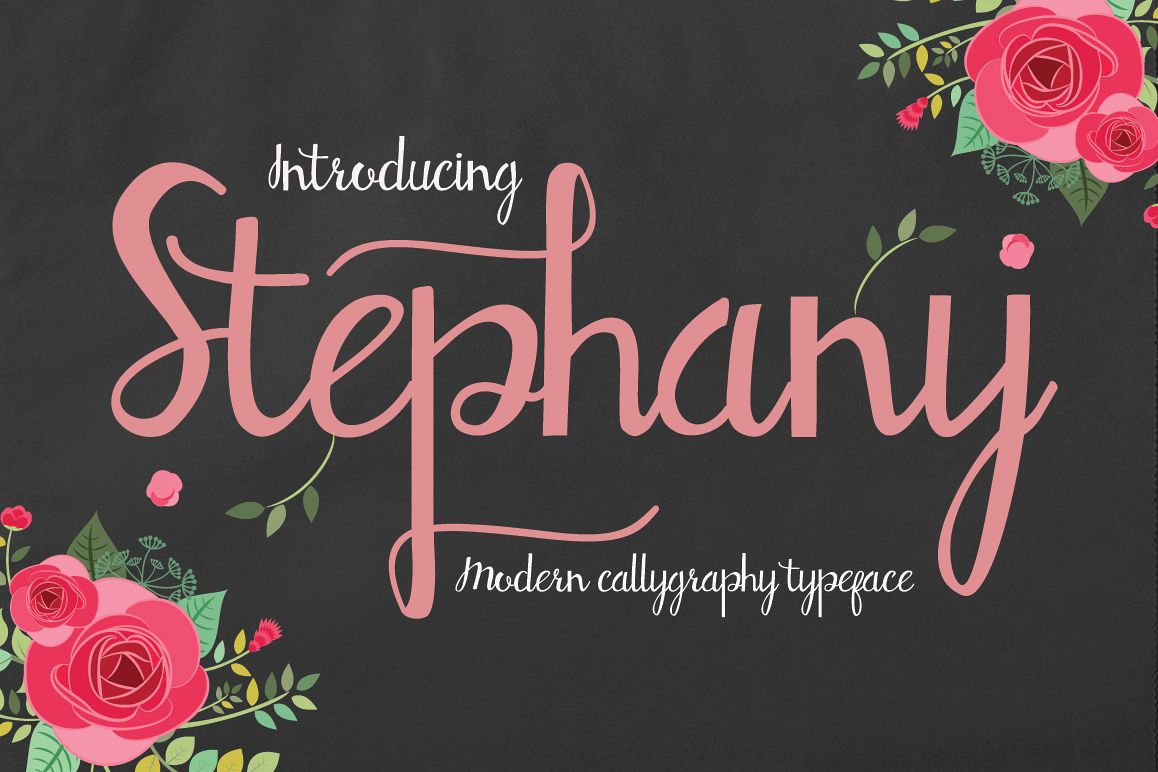
Stephany
Stephany-Regular
Stephany is a font bold, so, brush script that is beautiful and unique, it is a model of modern calligraphy typefaces, in combination with a calligraphy writing style. The Features of this fonts is;
Contextual Alternates
Standart ligatures
Discretionary ligatures
Stylistic Alternates
Stylistic sets